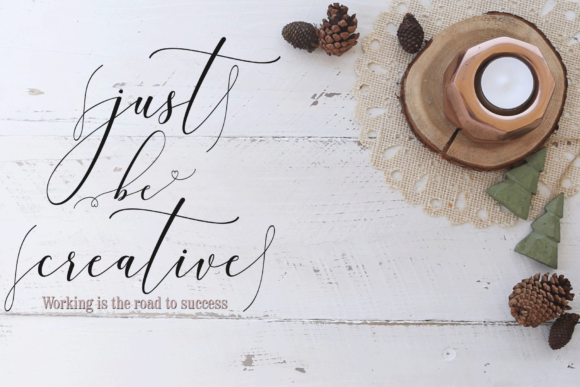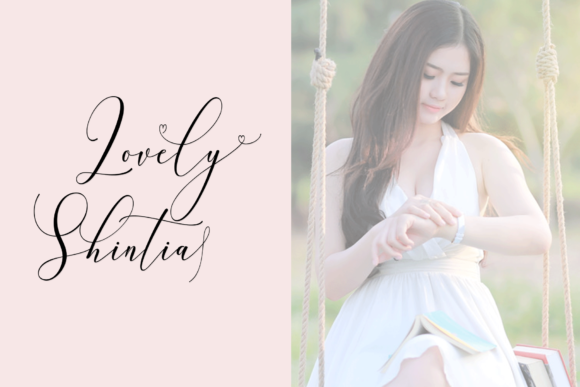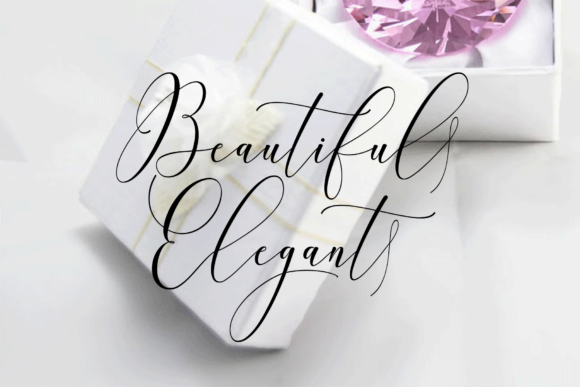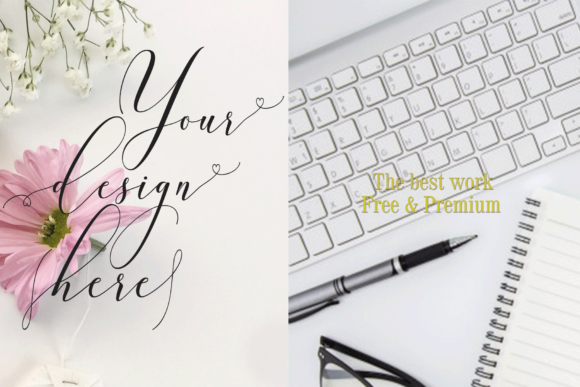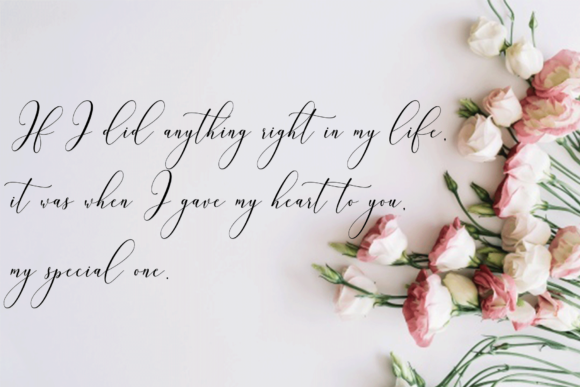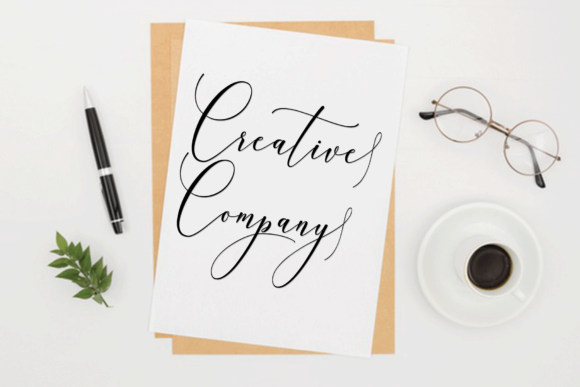
Introduction to Mellanie! Font
You’re sitting at your desk, surrounded by papers, pens, and an endless stream of design ideas. The clock is ticking, and your deadline is looming. Suddenly, a spark of inspiration hits you – a font that embodies the perfect blend of playfulness and elegance. Enter Mellanie! Font, a free download that’s about to revolutionize your creative project.
As a designer, you’re always on the lookout for that one special resource that elevates your work to the next level. Mellanie! Font is that game-changer. Its high-quality design and transparent background make it the perfect addition to any project. Whether you’re creating a logo, poster, or social media graphics, this friendly script font is sure to bring a touch of love and charm to your design.
Key Features of Mellanie! Font
- High-quality design resource suitable for various creative projects
- Includes multiple font styles with unique characteristics and design elements
- Perfect for use in various design applications, including logos, typography, and graphics
Honest Review: Mellanie! Font
I recently stumbled upon the Mellanie! Font while searching for a high-quality font to use in a creative project. I was impressed by its clean and elegant design, making it perfect for a design resource.
- ✨ Elegant and modern design
- ✨ High-quality glyphs and characters
- ⚠️ Limited font weight options (only regular and bold)
- ⚠️ May not be suitable for complex typography projects
Overall, I’m impressed with the Mellanie! Font. It’s a great addition to any designer’s toolkit, and its free download makes it accessible to designers of all levels. While it has some limitations, I believe it’s a valuable resource for creative projects.
Mellanie! Font is suitable for a variety of creative projects, including logos, business cards, brochures, and social media graphics. Its high-quality design makes it an excellent choice for designers and non-designers alike.